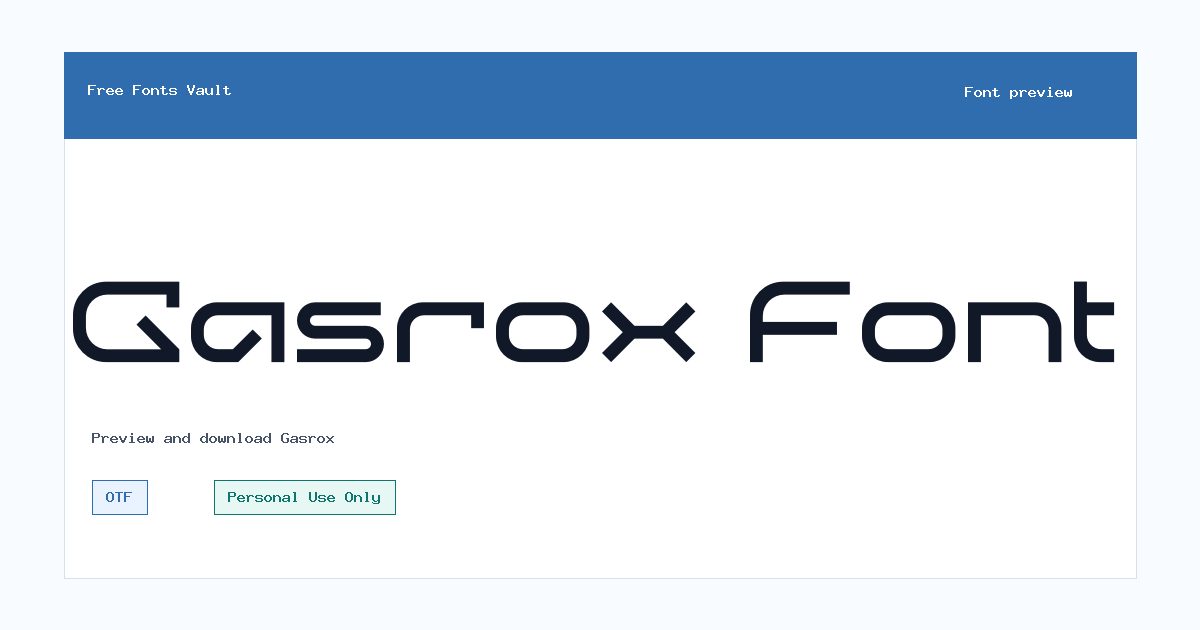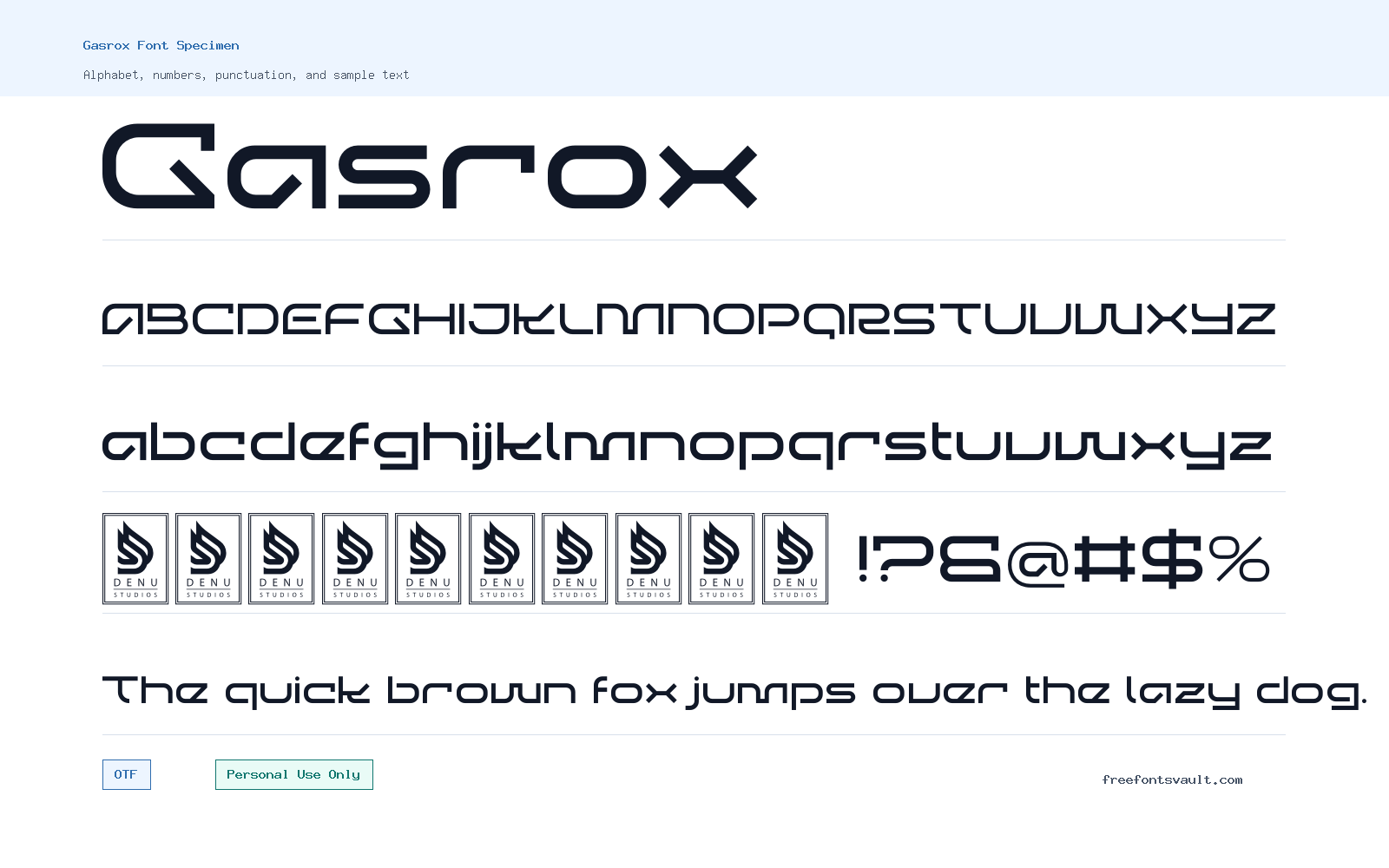
Gasrox
- Designer Dede Nugraha
Gasrox font.
Gasrox is a display font made for short, eye-catching text. It works best when you need a bold preview style for titles, posters, thumbnails, or other design pieces where the lettering is meant to stand out.
About Gasrox Font
This is the kind of font to test at headline size rather than in long paragraphs. Display fonts usually work strongest in short bursts: a logo concept, a cover title, a social post, a game-style heading, a sticker design, or a poster line. Before downloading, try both very short words and longer phrases in the preview. Look for spacing, readability, and whether the shapes stay clear at the size you plan to use.
- Display-focused style intended for short text, titles, and preview layouts
- Posters, covers, thumbnails, and bold headline treatments
- Personal design drafts, mockups, and short-text experiments
Gasrox is credited to Dede Nugraha. The font file metadata also references High-Logic / Made with FontCreator as the font creation tool or foundry-related metadata.
Gasrox is credited to Dede Nugraha.
Use it for short display text such as titles, posters, covers, thumbnails, and personal mockups. It is not a good choice for long reading text.